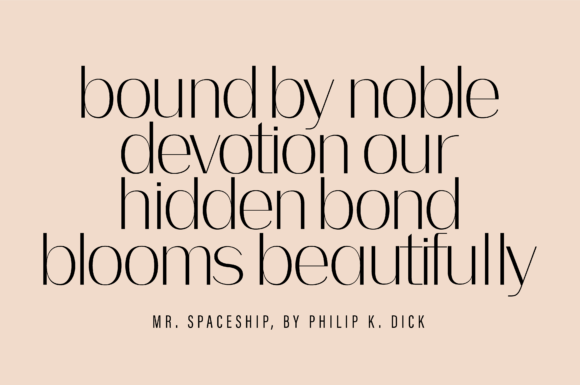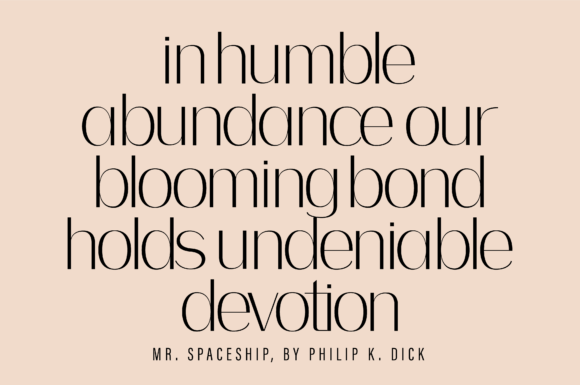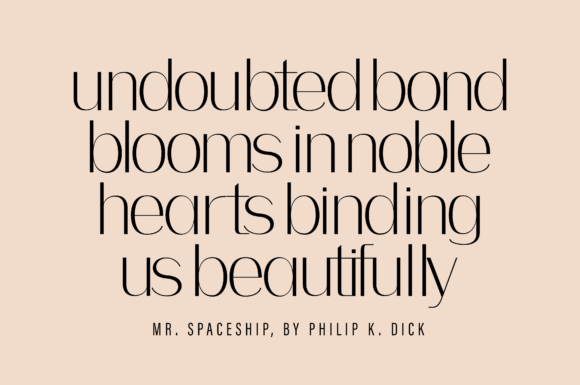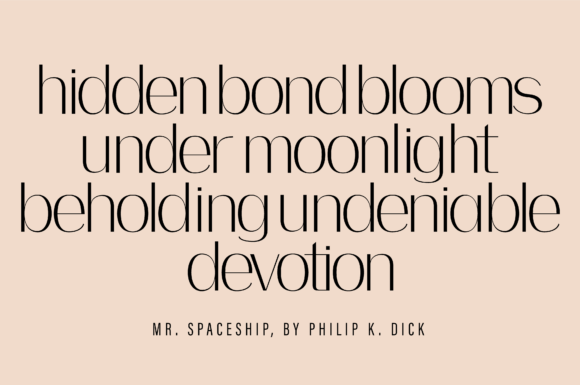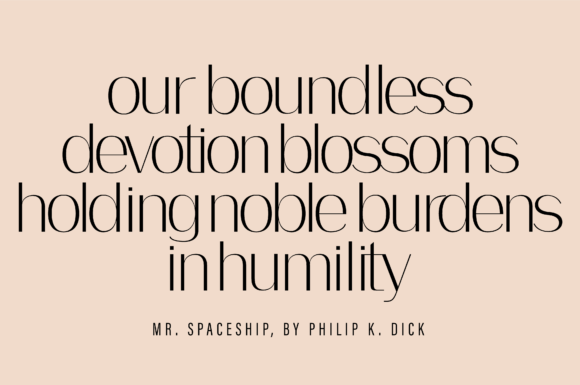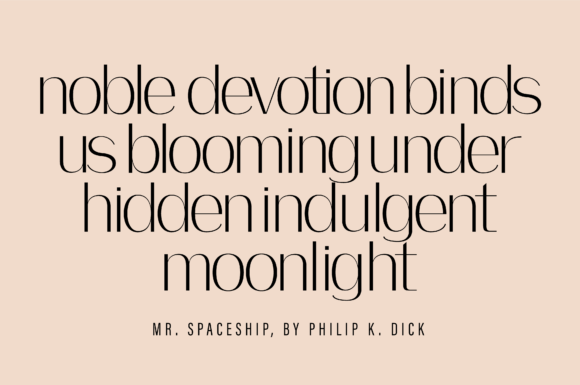
Discover the Elegance of Bodon Font: Elevate Your Design with Timeless Sophistication
In the world of typography, few fonts manage to strike a balance between elegance, readability, and versatility. Bodon font, however, stands out as a shining example of a typeface that embodies these qualities. Designed with a keen eye for detail and a deep understanding of what makes a font truly timeless, Bodon brings a level of sophistication and luxury to any design project. Whether you’re a seasoned designer or a crafty DIY enthusiast, Bodon is a font that promises to elevate your visual identity to new heights.
The Design Philosophy Behind Bodon
Bodon is a delicate, high-contrast sans serif font that eschews the ordinary in favor of the extraordinary. Its design is characterized by sleek, minimal curves and refined thin-to-thick transitions, which together create a sense of fluidity and grace. This attention to detail ensures that Bodon exudes a modern luxury feel, making it the perfect choice for projects that demand a high level of sophistication.
Versatility and Elegance in Every Detail
One of the standout features of Bodon is its versatility. This font is not just limited to one or two specific uses; rather, it can be seamlessly integrated into a wide range of design projects. From upscale branding and beauty product packaging to editorial layouts, wedding stationery, fashion lookbooks, and social media graphics, Bodon brings a level of elegance and refinement that is hard to match.
Its clean, minimal structure ensures that Bodon pairs well with a variety of design elements, while its graceful elegance adds a touch of sophistication to even the most straightforward projects. Whether you’re looking to create a visually stunning logo, an eye-catching advertisement, or a beautifully designed website, Bodon provides the perfect foundation for your creative endeavors.
Readability and Balance
One of the key challenges in choosing a font for a design project is ensuring that it remains highly readable, even at smaller sizes. Bodon excels in this regard, thanks to its balanced proportions. This careful attention to detail ensures that Bodon remains clear and legible, whether it’s used for a headline, a paragraph of text, or a social media post.
Variety and Compatibility
Why Choose Bodon for Your Design Projects?
- Timeless Elegance: Bodon’s sleek design ensures that your projects look modern and sophisticated, without ever going out of style.
- Exceptional Readability: Its balanced proportions make Bodon highly readable, even at small sizes, ensuring your message is always clear.
- Versatility: From luxury branding to fashion lookbooks, Bodon’s versatility shines through in any design project.
Bodon font represents the perfect blend of style, elegance, and functionality. Its delicate, high-contrast design makes it an ideal choice for designers and crafters looking to add a touch of luxury to their projects. With its exceptional readability, versatile application, and availability in multiple formats, Bodon is poised to become a staple in the world of typography. Whether you’re embarking on a new design project or looking to refresh your visual identity, Bodon is a font that promises to deliver timeless sophistication and elegance.